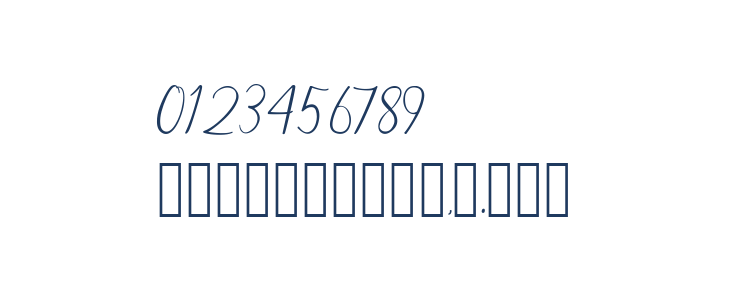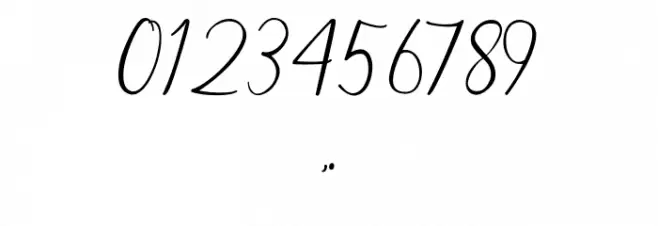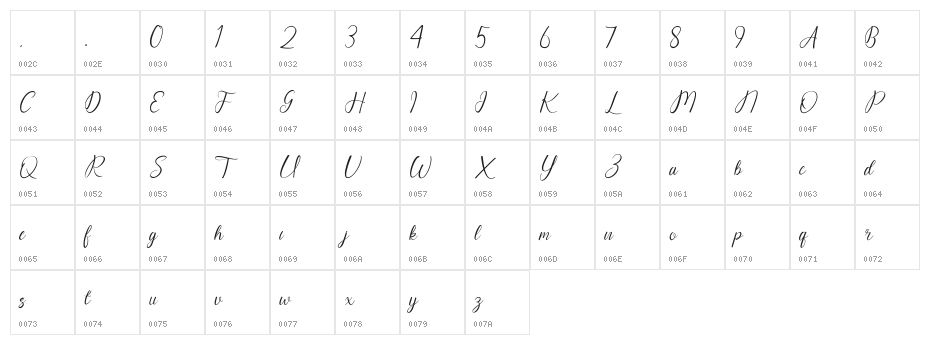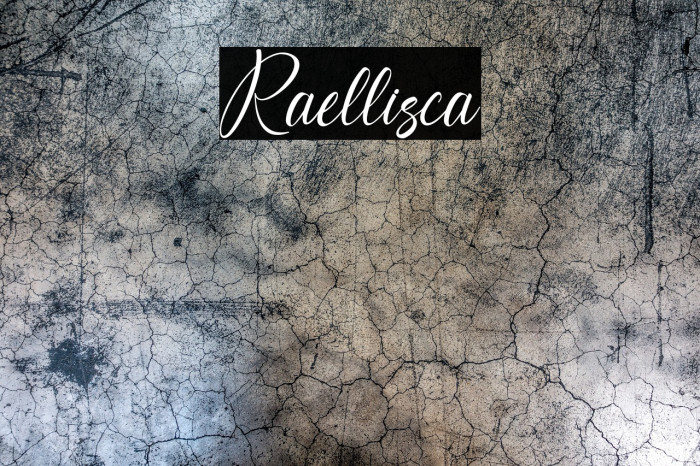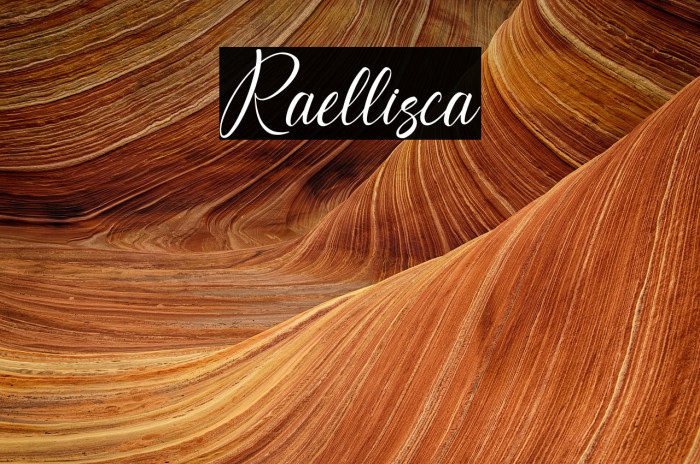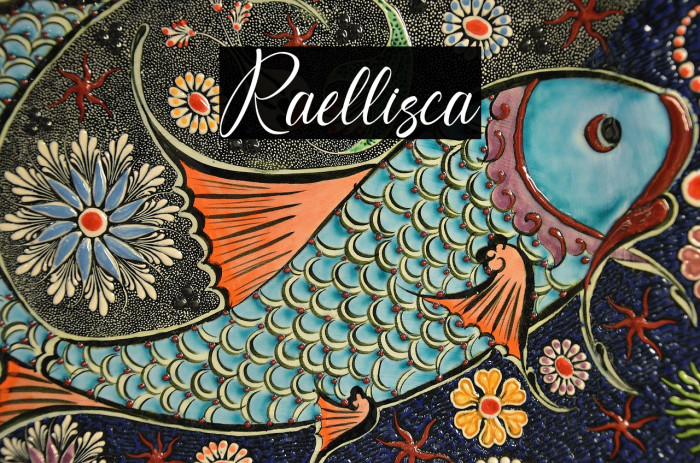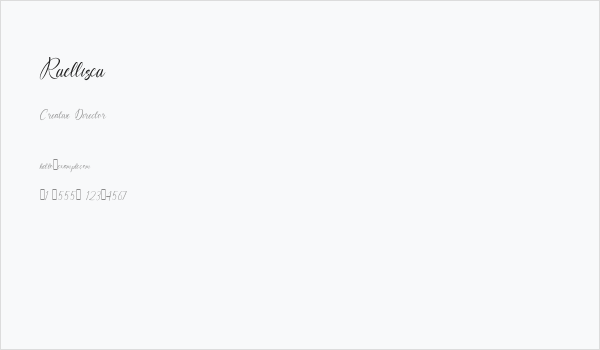
Raellisca Font
Raellisca Description
This elegant script font features flowing, cursive letterforms with a graceful and sophisticated appearance. The uppercase letters are ornate with sweeping curves, while the lowercase letters maintain a consistent fluidity, enhancing readability. The numerals are styled to match the overall aesthetic, providing a cohesive look. The font's delicate strokes and smooth connections between characters create a harmonious and stylish effect, making it ideal for formal invitations, branding, and decorative purposes. Its artistic flair and refined style make it suitable for projects that require a touch of elegance and sophistication.
| Use Case | Invitations, Branding, Decorative |
| Proposed Projects | Ideal for wedding invitations, luxury branding, greeting cards, and decorative signage. |